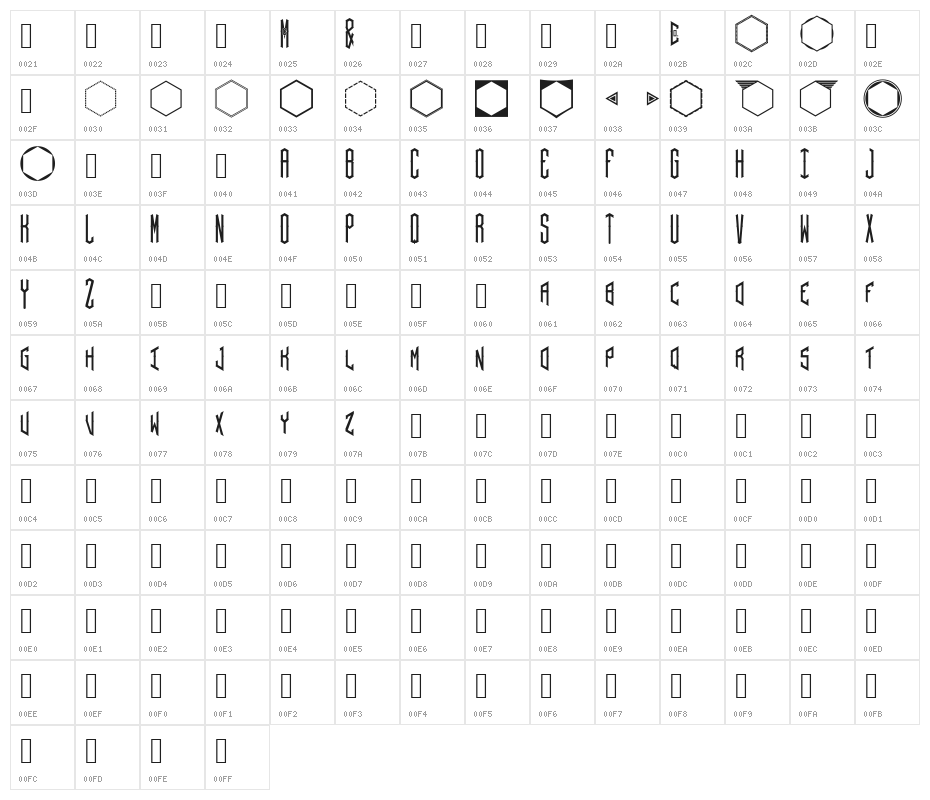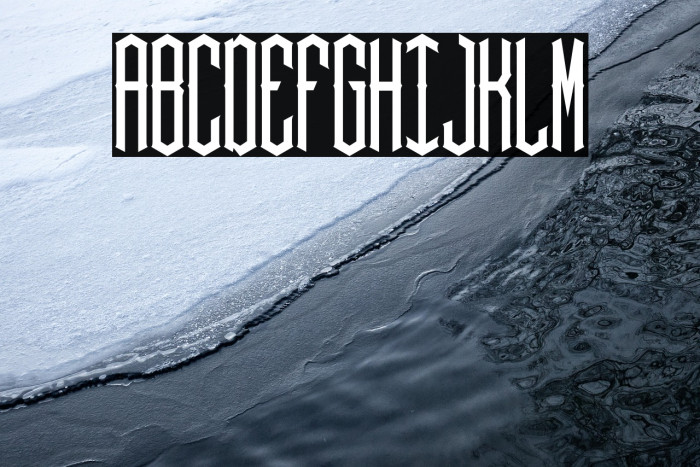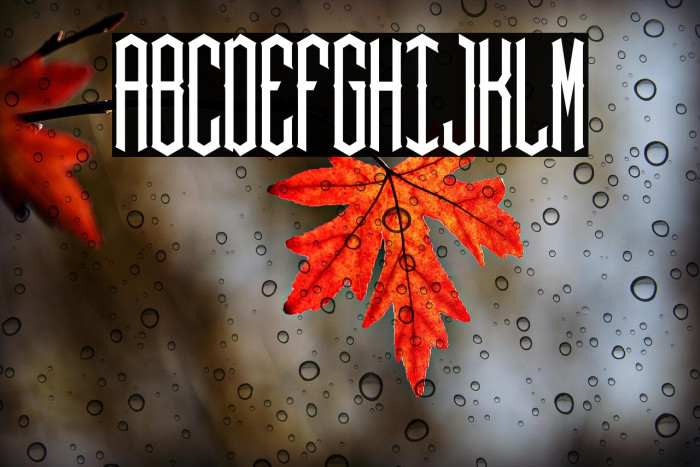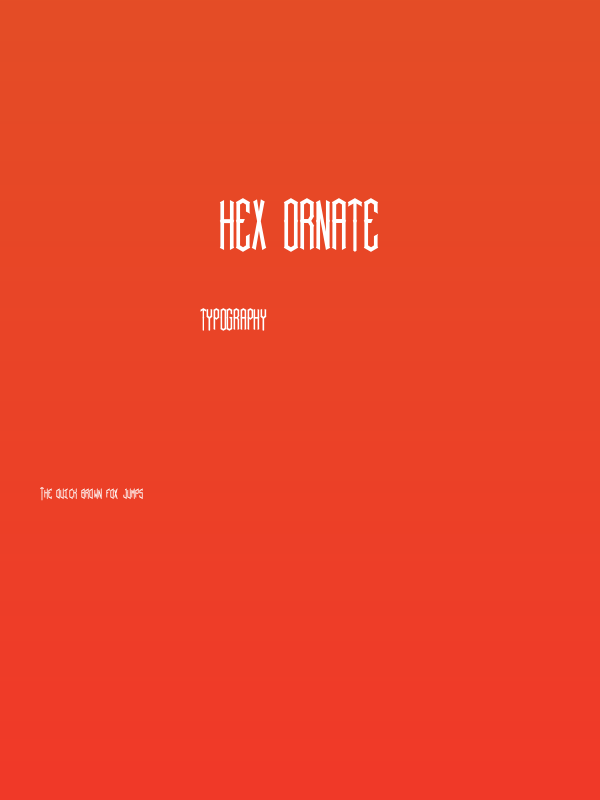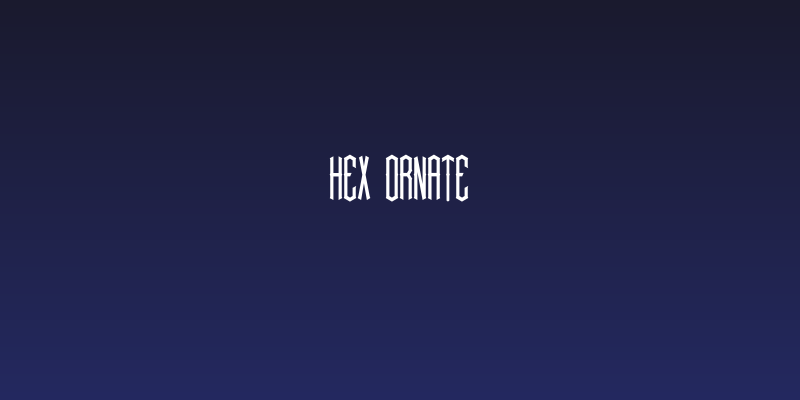
Hex ornate Font
Hex ornate Description
This font features a bold and striking design with sharp, angular lines and a geometric aesthetic. The uppercase letters are tall and narrow, with pointed edges that give a sense of movement and energy. The lowercase letters maintain the same angular style, creating a cohesive look throughout. The numbers and special characters are designed to match the overall style, with unique shapes that stand out. This font is perfect for projects that require a modern and edgy appearance, making it ideal for branding, posters, and other creative designs.
| Proposed Projects | Ideal for branding, posters, album covers, and creative designs that require a modern and edgy look. |